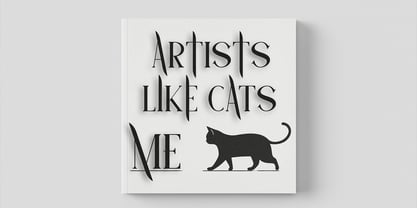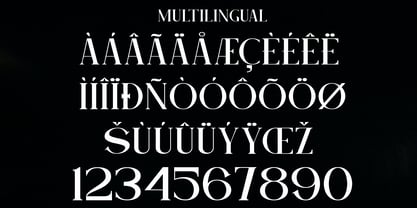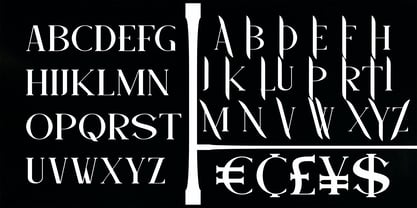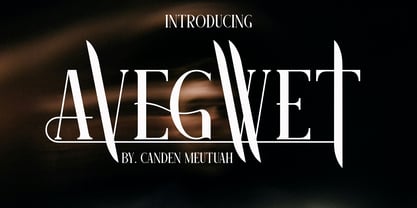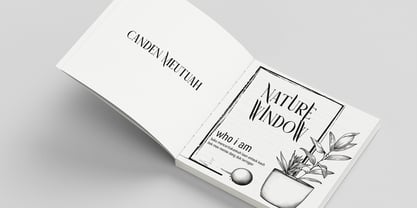
Avegwet
by Canden Meutuah
The Avegwet Font Family was designed by Canden Meutuah and published by Canden Meutuah. Avegwet contains 1 styles. More about this family
Avegwet stands out as a bold and stylish condensed sans serif font that marries retro aesthetics with modern minimalism. Characterized by thoughtfully crafted uppercase and lowercase letters, it boasts strict proportions, clean lines, and striking curves that infuse your designs with a vibrant personality. Ideal for posters, logo designs, editorial titles, album covers, and fashion branding, Avegwet captures attention with its distinctive flair, making it a versatile choice for impactful visual communication.